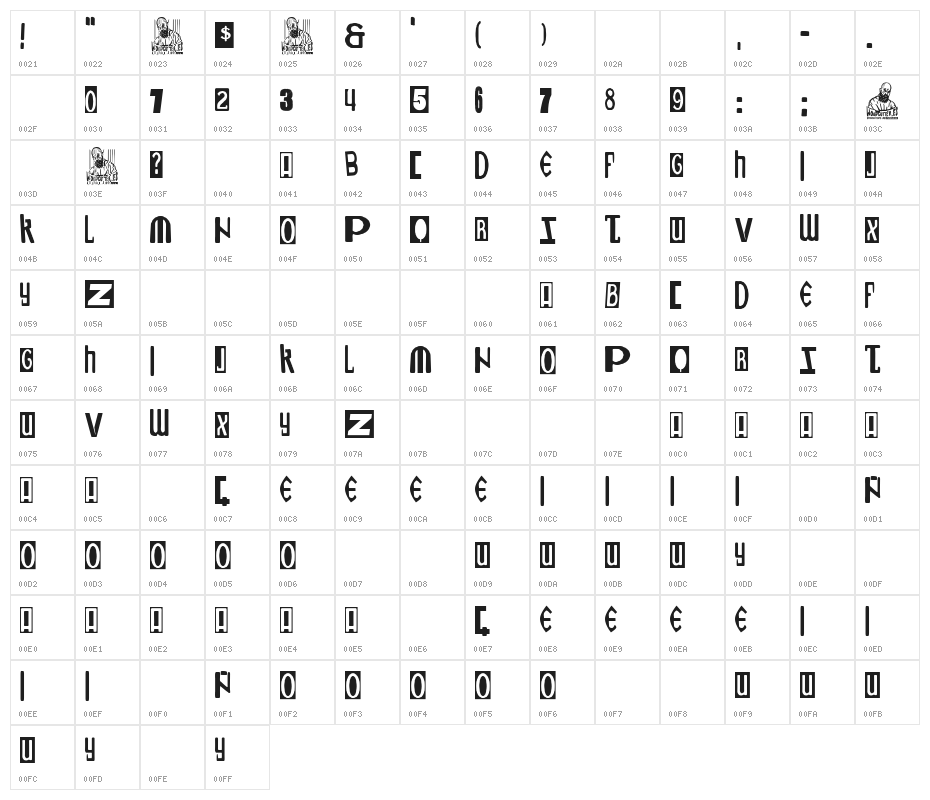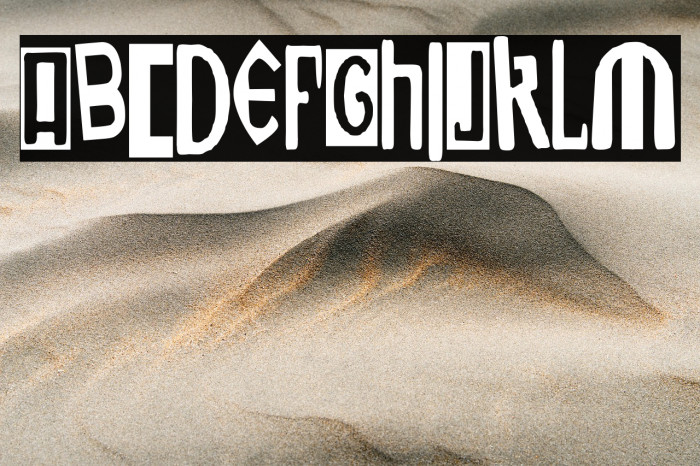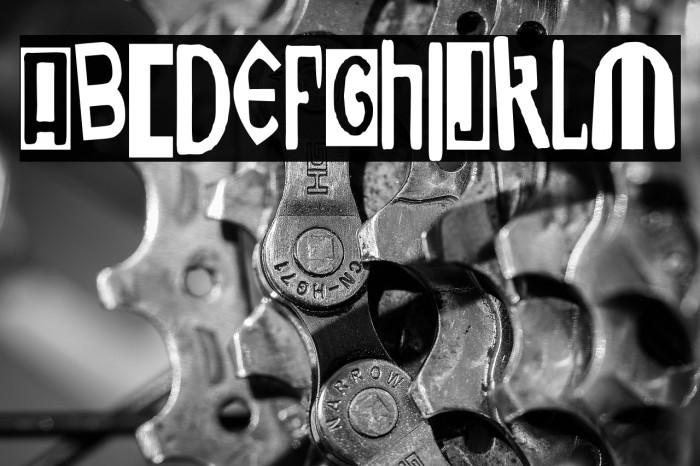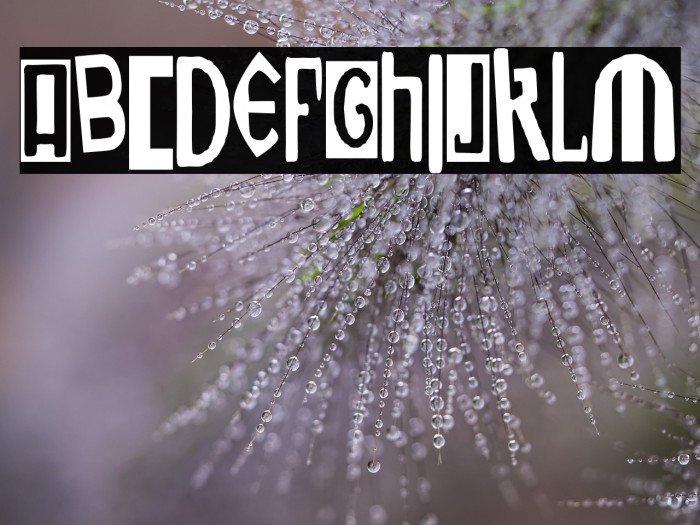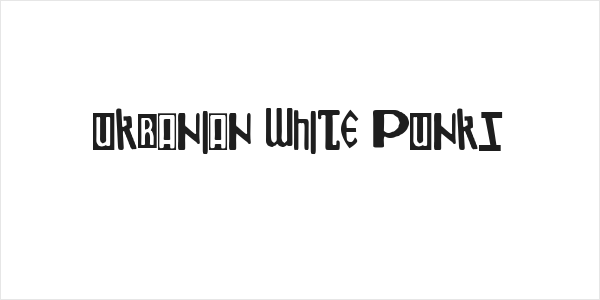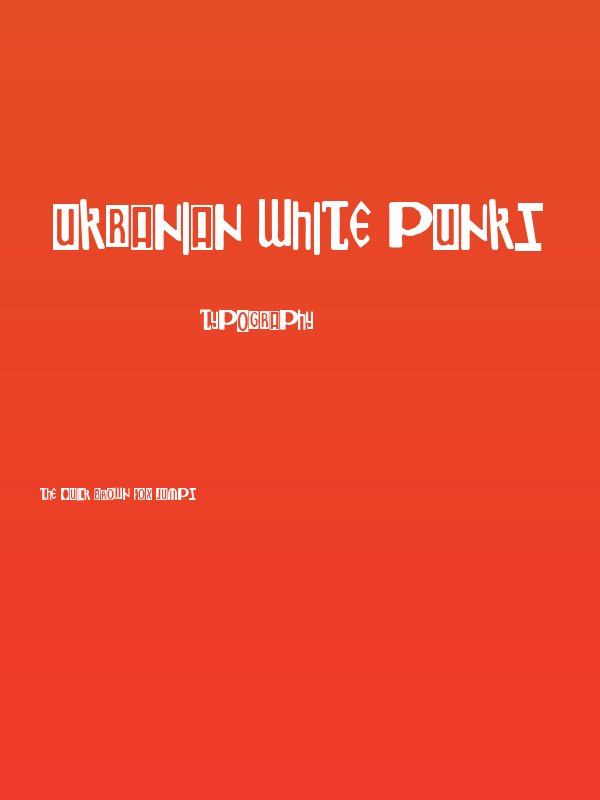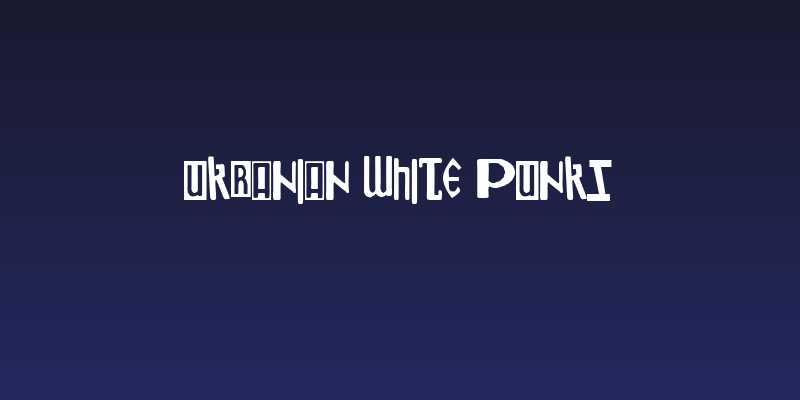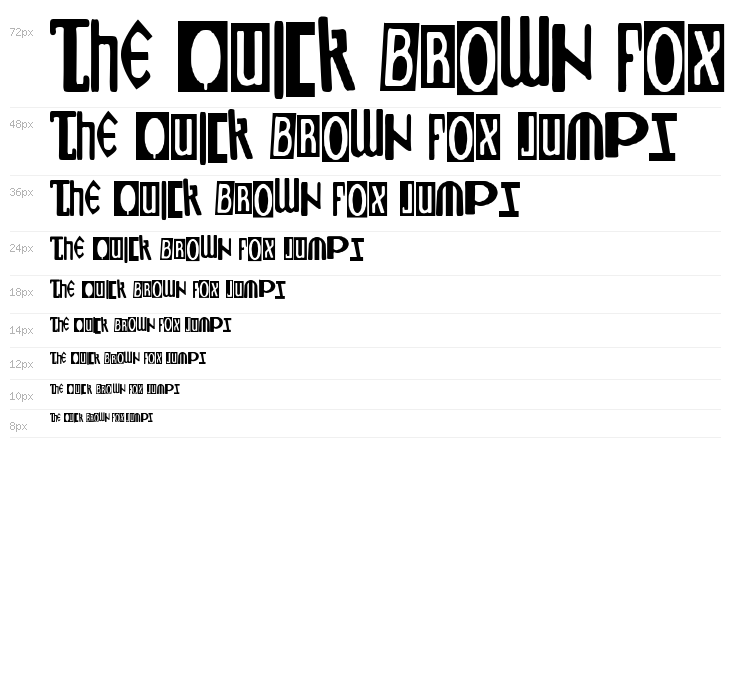
Ukranian White Punks Font
Ukranian White Punks Description
This font features a bold, eclectic style with a mix of geometric and abstract shapes. Each character is uniquely designed, incorporating elements such as spirals, blocks, and curves, giving it a distinctive and artistic appearance. The uppercase letters are particularly striking, with some characters enclosed in rectangular frames, while others have exaggerated curves or angular forms. The numbers and special characters maintain this creative flair, adding to the font's overall dynamic and unconventional look. This font is ideal for projects that require a strong visual impact and a touch of creativity.
| Proposed Projects | Ideal for album covers, posters, and creative branding projects. |